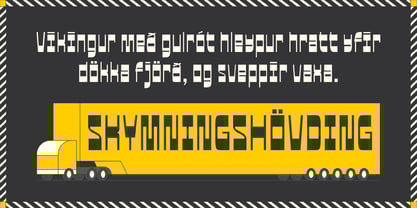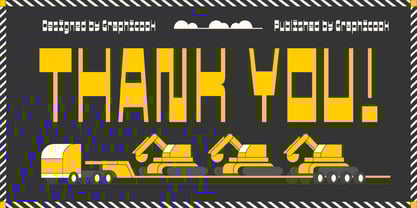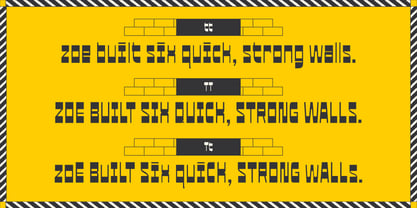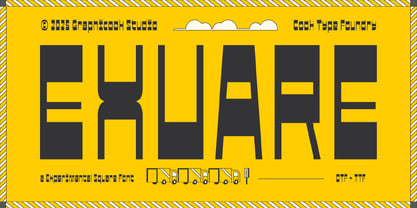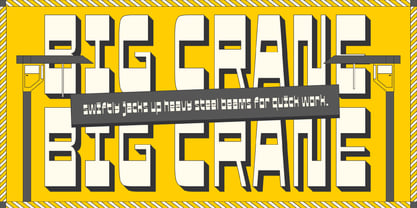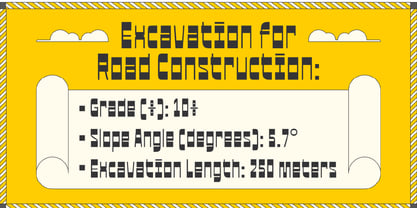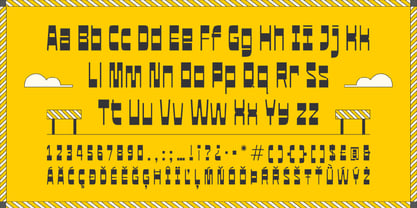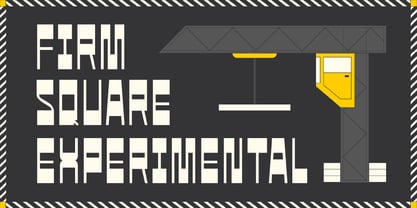
Cook Exuare
by Graphicook Studio
The Cook Exuare Font Family was designed by Gumilar Febriansyah and published by Graphicook Studio. Cook Exuare contains 1 styles. More about this family
Exuare is an experimental font with a rigid, structured form and sharp corners. It’s perfect for headlines, offering unique readability with bold design elements. It is perfect for headlines, logotypes, magazines, packaging, quotes, movies, games, cover albums, book covers, and flyers, it's a perfect solution for creating eye-catching designs that stand out in any context.
Designers: Gumilar Febriansyah
Foundry: Graphicook Studio